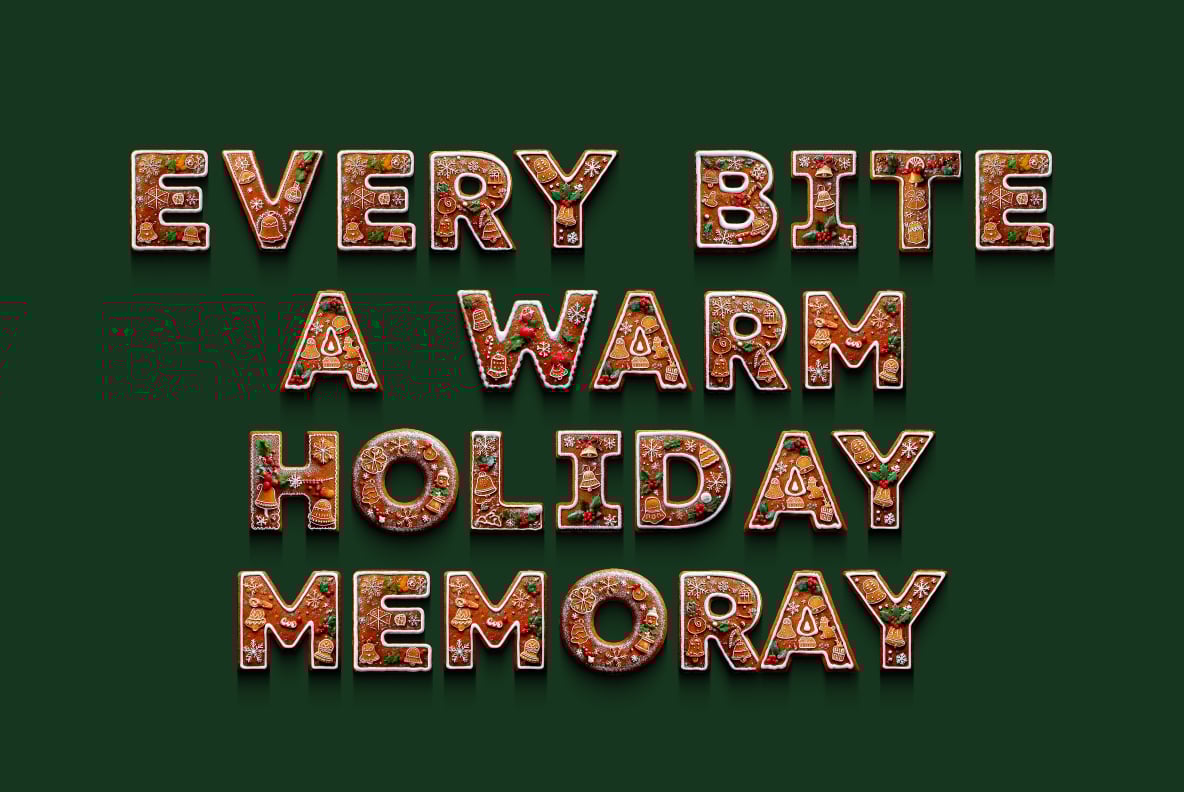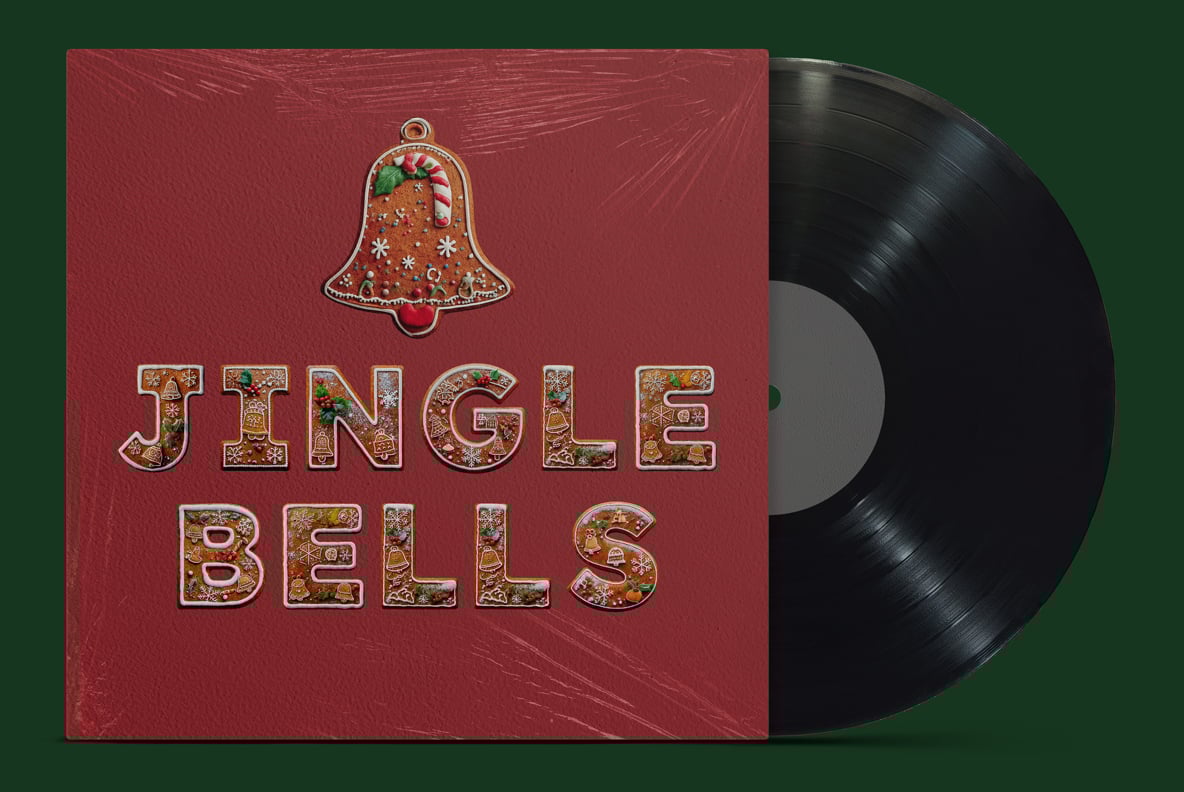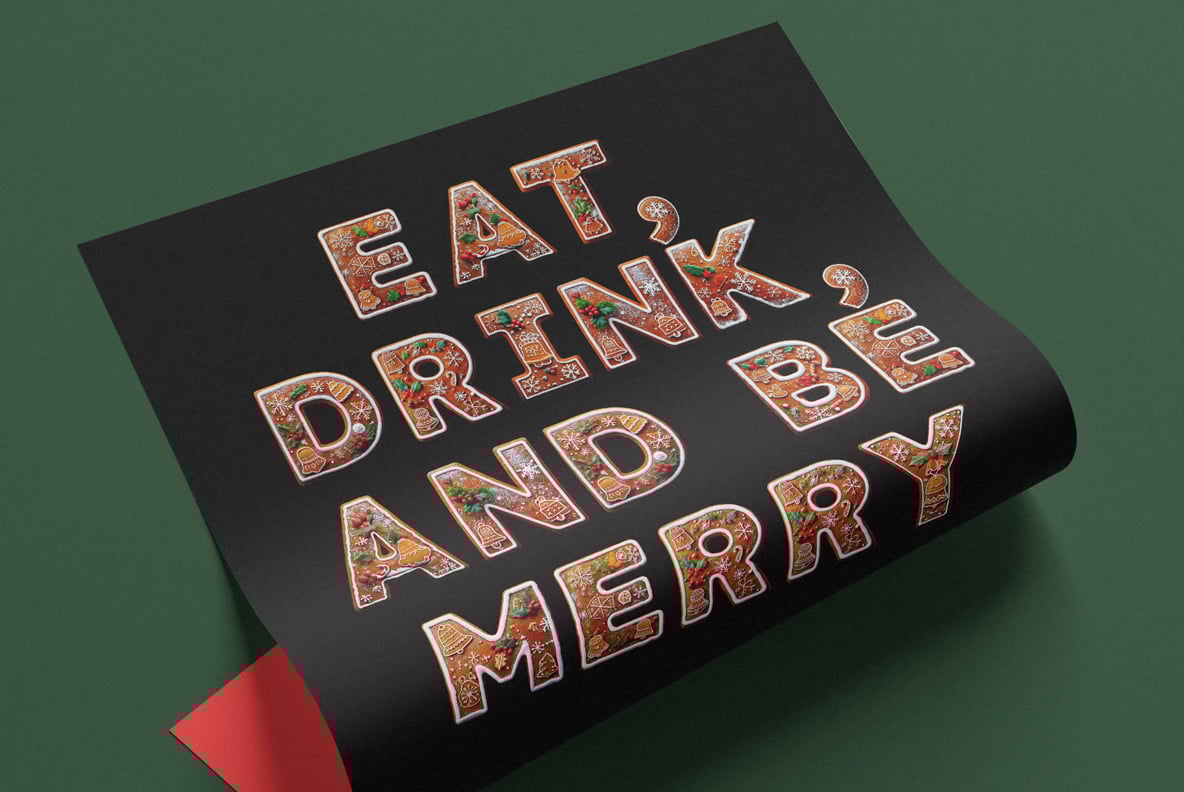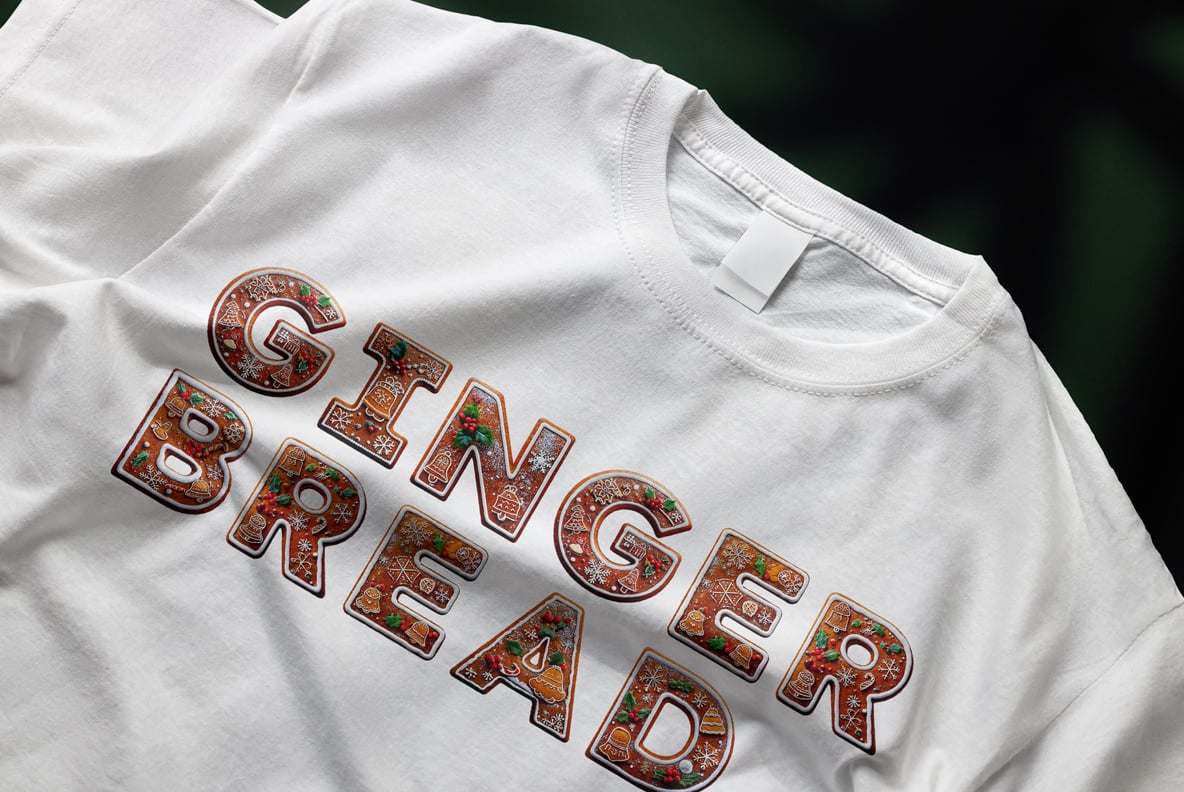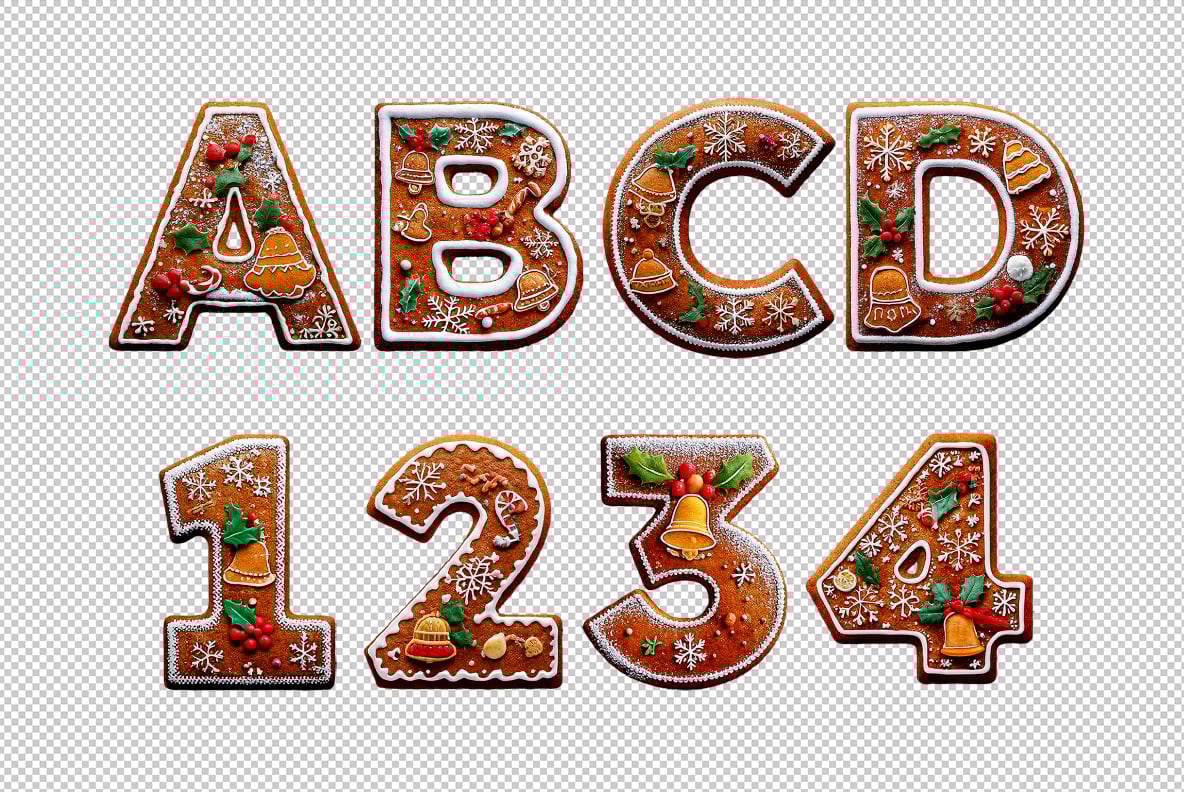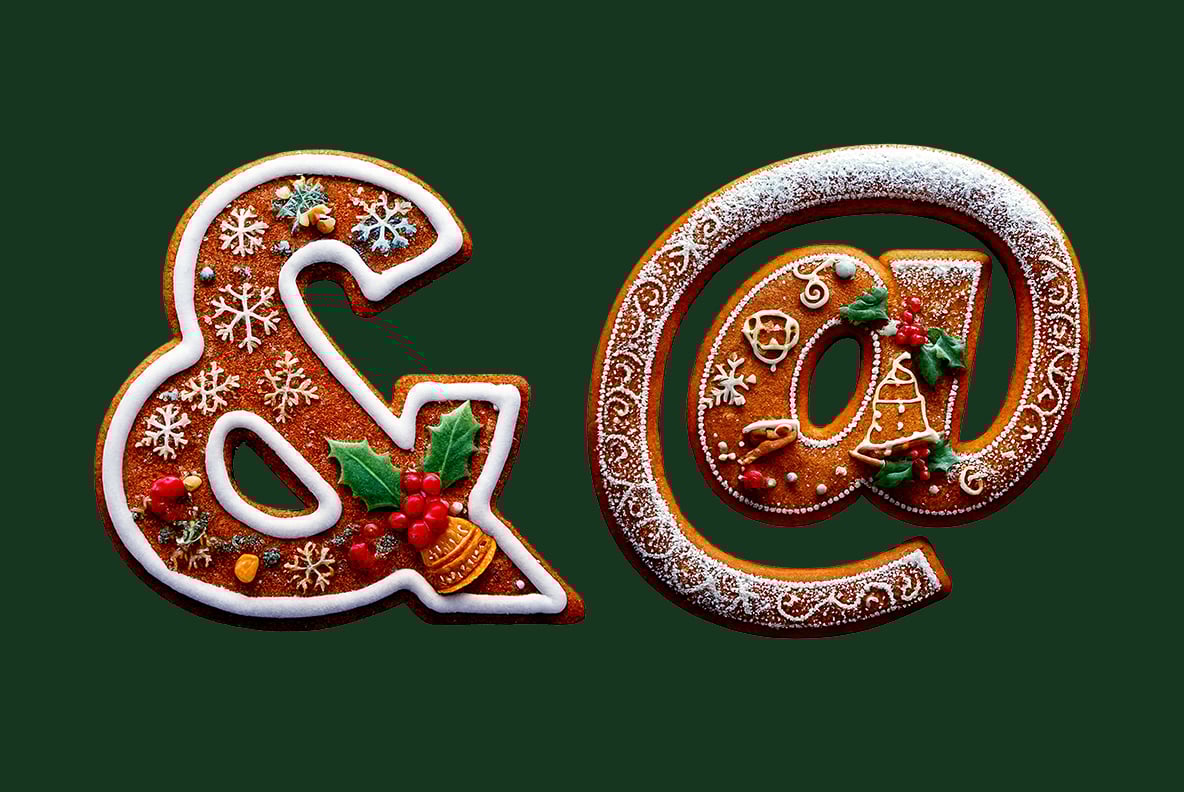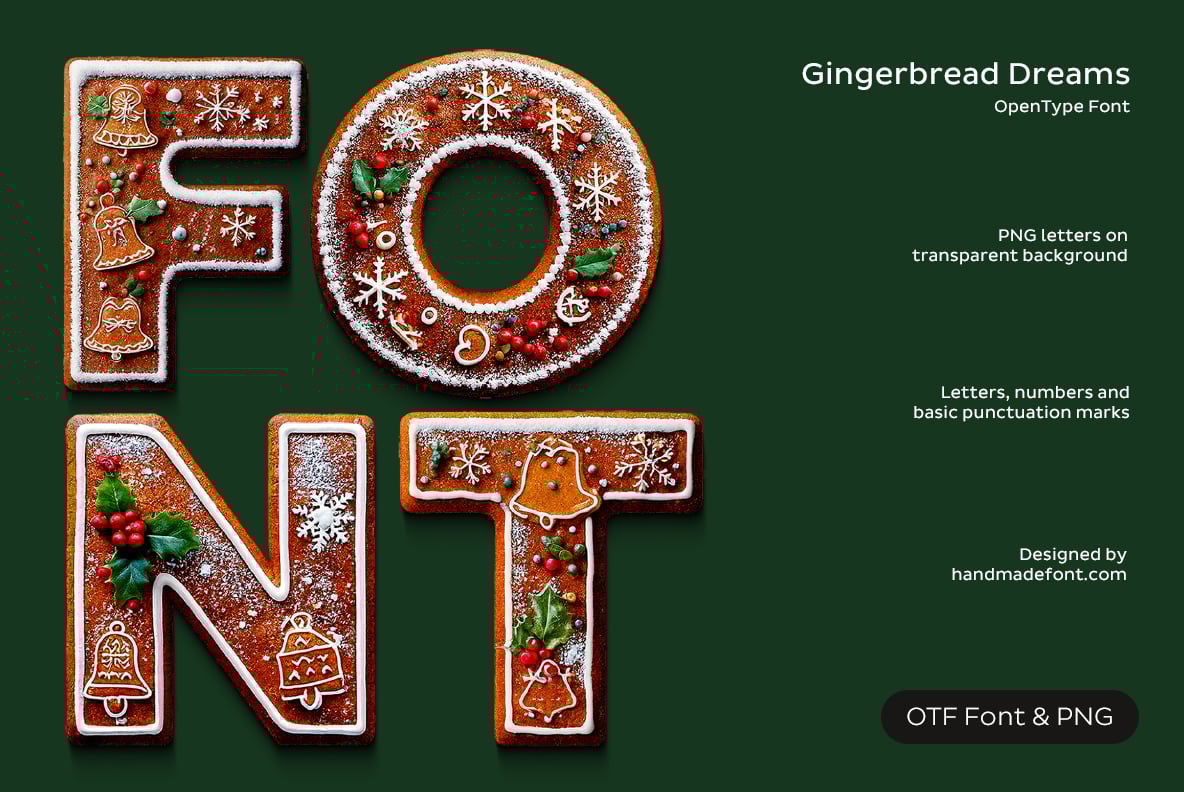
Gingerbread Dreams Font
Gingerbread Dreams Font is a whimsical and festive typeface inspired by the warmth of the holiday season. Each letter is lovingly crafted to resemble a gingerbread cookie, complete with intricate icing, sugar dusting, and holiday-themed decorations like snowflakes, bells, holly, and berries. This deliciously detailed font evokes cozy winter vibes and Christmas magic, perfect for greeting cards, seasonal branding, festive packaging, and cheerful invitations. With its rich brown tones and charming hand-decorated look, Gingerbread Dreams adds a sweet touch of nostalgia and joy to any holiday project. It’s not just a font — it’s a sugar-spiced celebration in every letter.